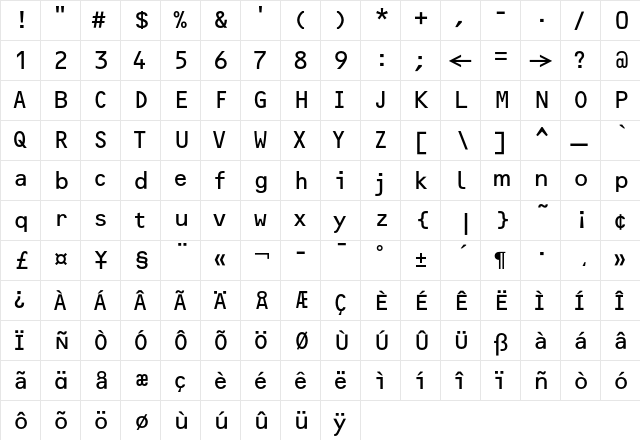
F2FOCRBczyk LT Std Regular Regular
| Foundry | Linotype Library GmbH |
| Designer | Alexander Branczyk |
Design Context for F2FOCRBczyk LT Std Regular Typeface
F2FOCRBczyk LT Std Regular takes a measured approach to typography — its balanced proportions and neutral character make it a reliable workhorse for both digital and print work. The delicate stroke weight brings airiness and refinement to layouts.